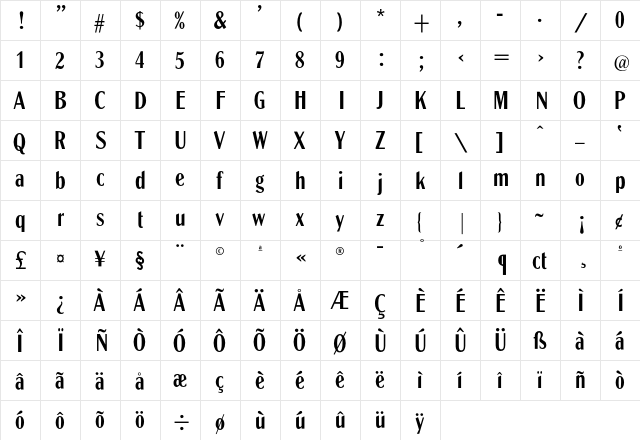
GlobeCondL Regular
Design Context for GlobeCondL Typeface
GlobeCondL offers clean, dependable letterforms without strong stylistic allegiance, making it a practical choice for designers who need flexibility. Its narrow stance lets it pack a punch even in space-constrained designs.